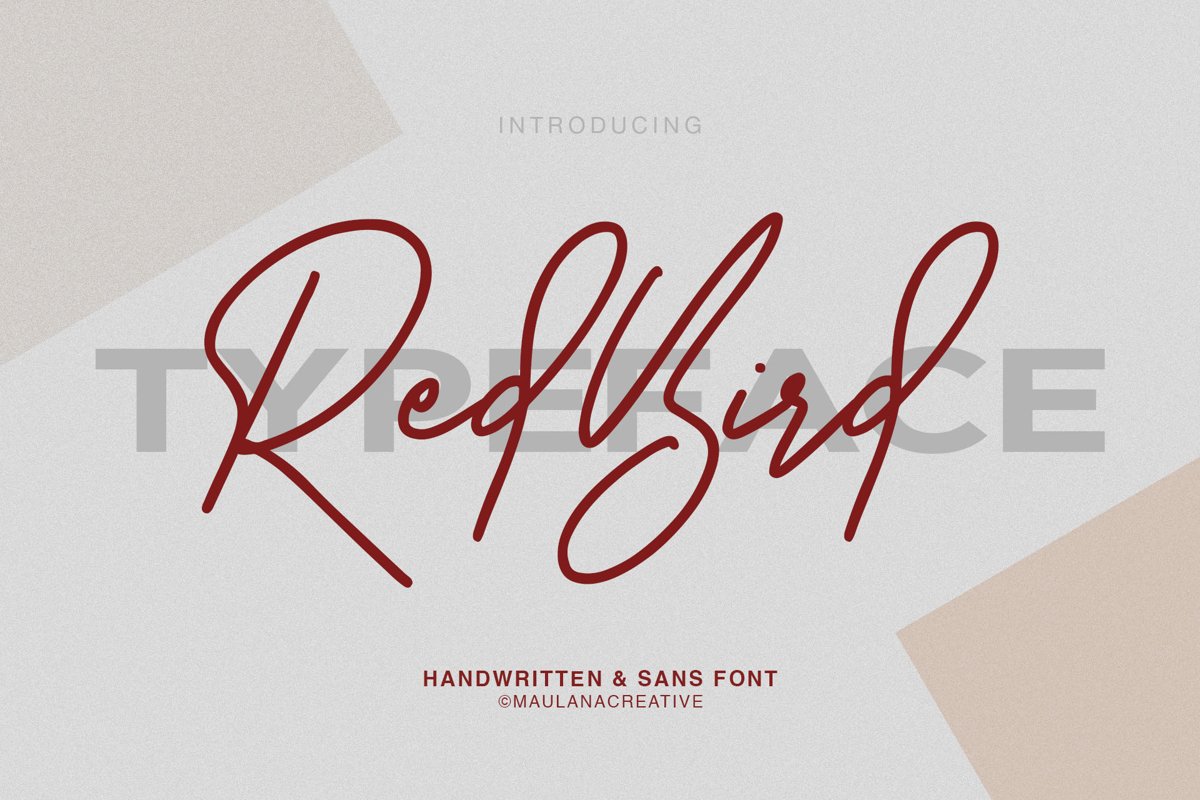
Give your designs an authentic brush handcrafted feel. "Redbird" is perfectly suited to signature, stationery, logo, typography quotes, magazine or book cover, website header, flyer, clothing, branding, packaging design and more.